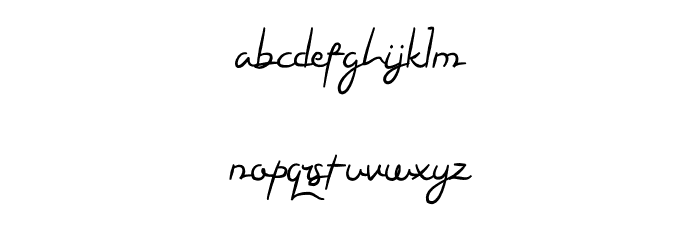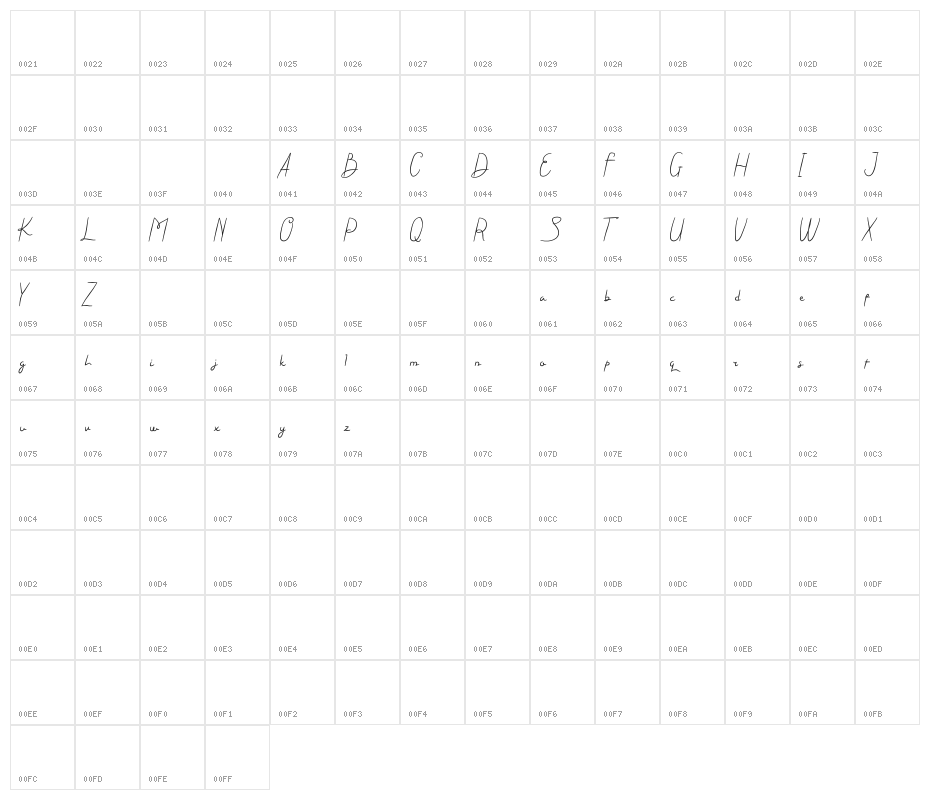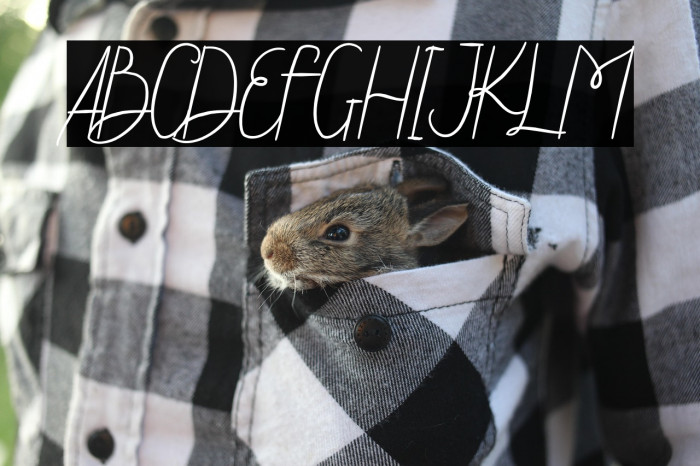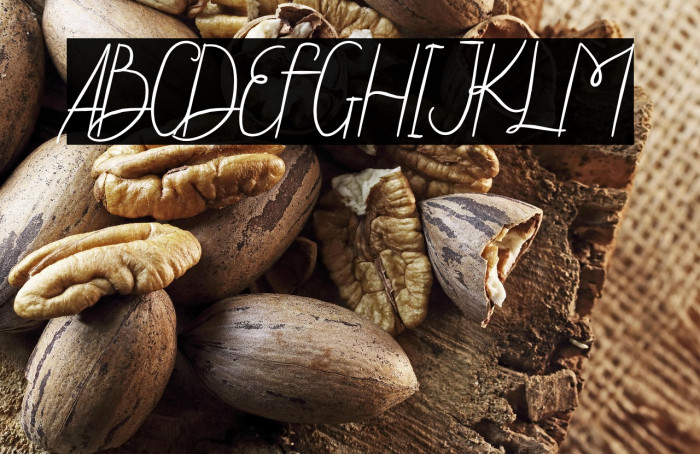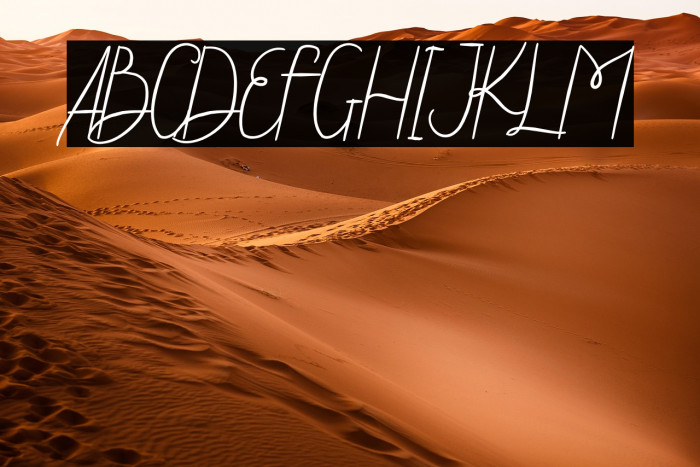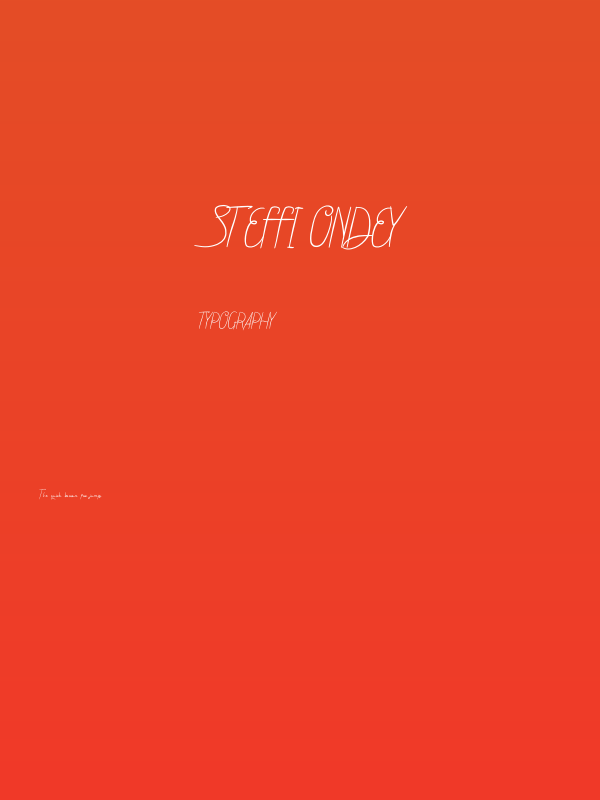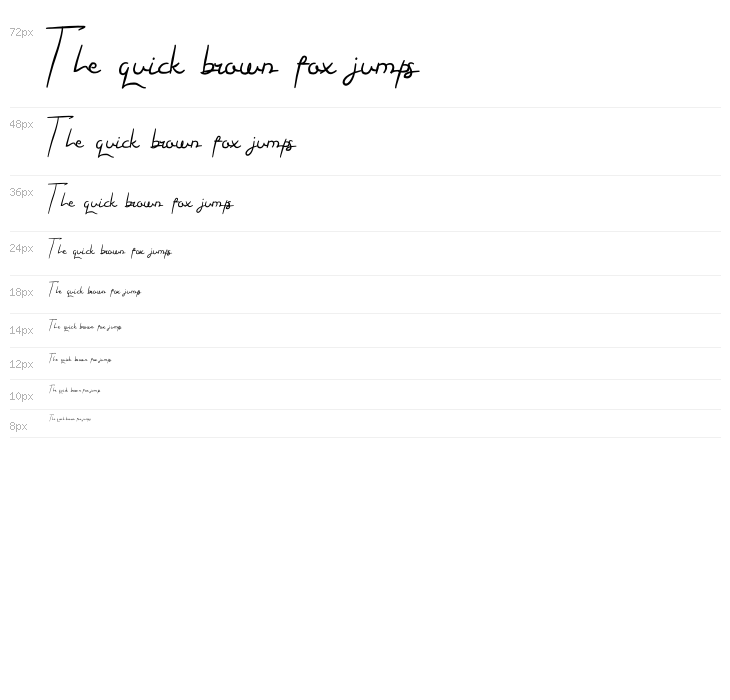
Steffi Ondey Font
This font exhibits a playful and whimsical handwritten style, characterized by its flowing and interconnected letterforms. The strokes are thin and delicate, giving it an airy and light appearance. The uppercase letters are tall and slightly slanted, adding a dynamic and lively feel. The lowercase letters maintain a consistent flow, enhancing the handwritten aesthetic. The overall design is casual yet elegant, making it suitable for creative and informal applications. The font's unique style is perfect for projects that require a personal touch, such as invitations, greeting cards, or artistic branding.
A playful, whimsical handwritten font with flowing, interconnected letterforms.
- Font: Steffi Ondey
- Proposed Projects: Ideal for invitations, greeting cards, artistic branding, and creative projects.
- Category: Handwritten
- Weight: Light
- Use Case: Logos, Headlines, Creative projects